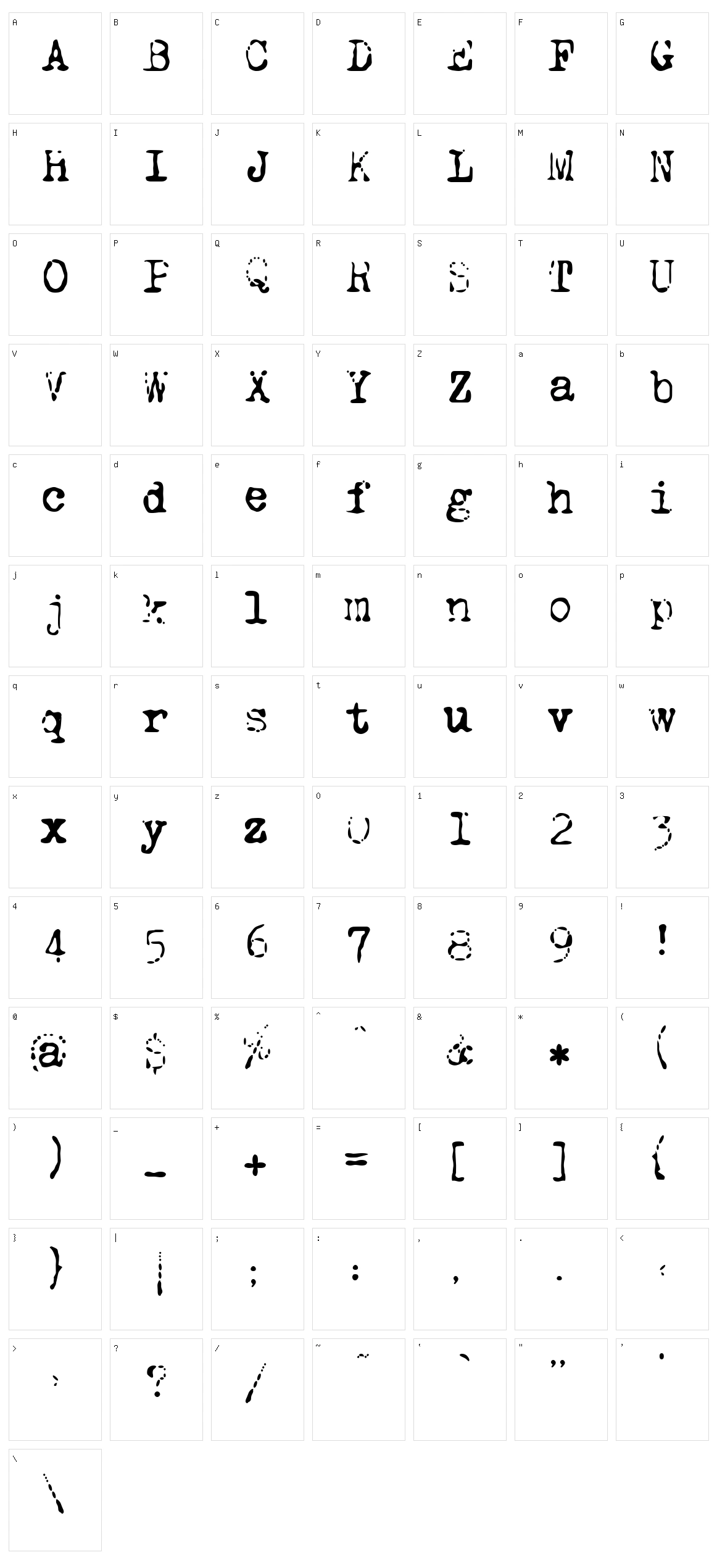
The font âºLL Tippaâ¹, in memory of the old portable typewriter Tippa, often used by my Copywriter in my first international advertising agency. If you make a donation it is for Charlotte, my newborn daughter.